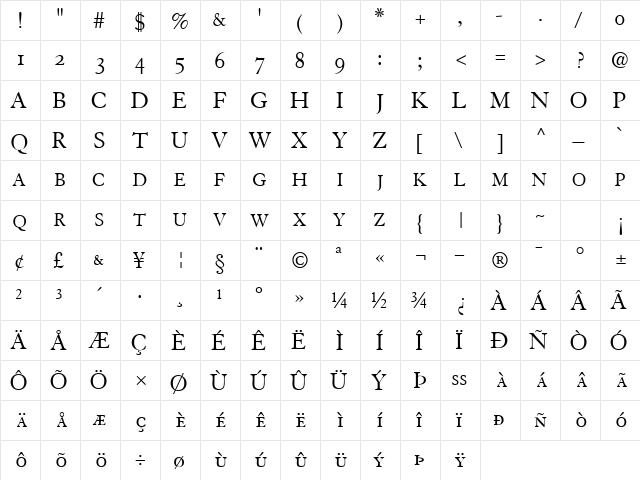
TiascoOSSCapsSSK Regular
Design Context for TiascoOSSCapsSSK Typeface
TiascoOSSCapsSSK is a composed and adaptable typeface that performs quietly and consistently across a wide range of design contexts.